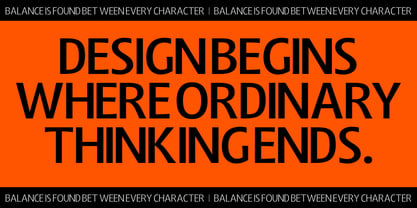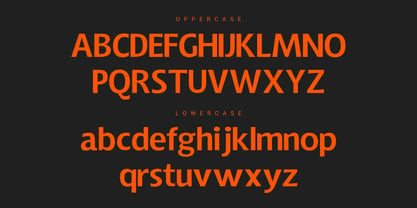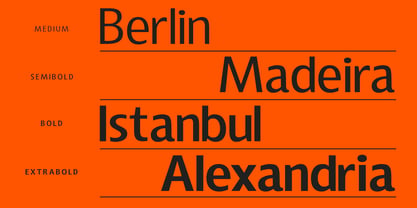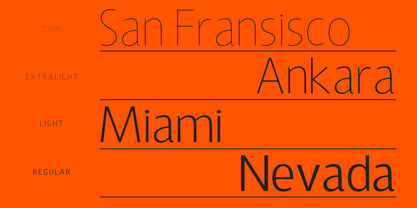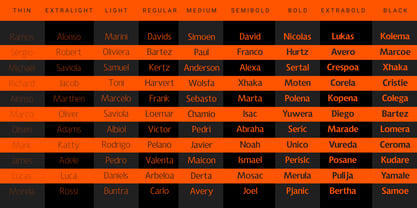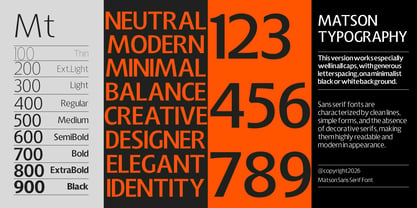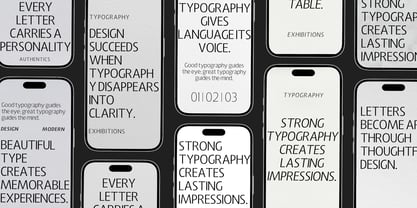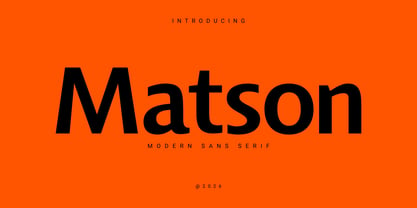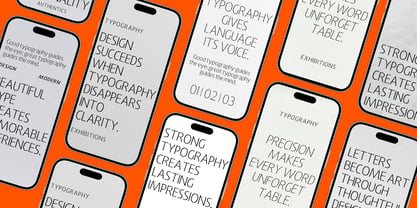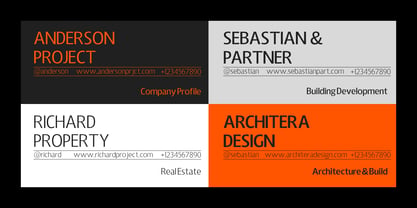
Matson
The Matson Font Family was designed by Teuku Zulfikar and published by Josstype. Matson contains 145 styles and family package options. More about this family
Matson is a contemporary sans serif typeface designed with precision, versatility, and timeless simplicity. Featuring clean geometry, balanced proportions, and refined details, it delivers exceptional readability while maintaining a bold modern character suitable for both digital and print applications.
With an extensive collection of 144 styles, Matson offers outstanding design flexibility. The family includes weights ranging from Thin to Black, available in both upright and italic, along with multiple width variations from condensed to expanded. Whether you're crafting impactful headlines, sophisticated branding, editorial layouts, user interfaces, packaging, or corporate identities, Matson adapts effortlessly to every creative challenge.
Its comprehensive style range allows designers to build consistent typography systems with seamless hierarchy, making it an excellent choice for professional branding projects, web design, advertising, presentations, and modern visual communication.